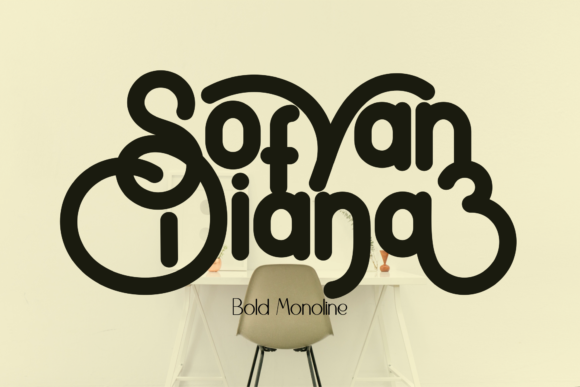
Sofyan Diana Font
Welcome to the enthralling world of Sofyan Diana, a bold and captivating display font that will transform your design visions into reality. Created by the skilled hands of Syukursetiyadi, Sofyan Diana exudes confidence and strength, leaving an indelible mark on your creative endeavors.
Step into a realm where your ideas dance with audacity and vigor, led by the strokes of Sofyan Diana. Its monoline design weaves a tale of simplicity and elegance, yet packs a punch that commands attention. Let your designs radiate with a personality that speaks volumes, captivating your audience and leaving them spellbound.
With Sofyan Diana as your creative ally, you'll embark on a journey of endless possibilities. Unleash your imagination and watch as this font elevates your designs to new heights. Craft captivating headlines that leap off the screen, demanding attention. Compose logos that embody boldness and leave a lasting impression. Create social media graphics that sizzle with energy and engagement.
Harness the power of Sofyan Diana to craft wedding invitations that evoke elegance and romance. Design business cards that exude professionalism and authority. Create flyers and posters that ignite excitement and intrigue, leaving your audience eager for more.
Sofyan Diana is more than just a font; it's a gateway to a world of boundless creativity. Its versatile nature adapts seamlessly to a myriad of design projects, allowing you to weave your magic across multiple mediums. Let Sofyan Diana be your muse, guiding you towards design masterpieces that captivate and inspire.
Don't settle for ordinary; embrace the extraordinary with Sofyan Diana. Experience the thrill of designing with a font that ignites your passion and propels your creativity to dizzying heights. Make a statement, leave a legacy, and let your designs reverberate with the power of Sofyan Diana.